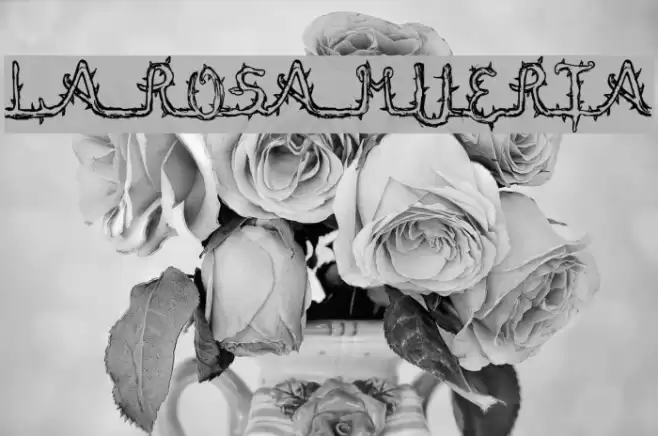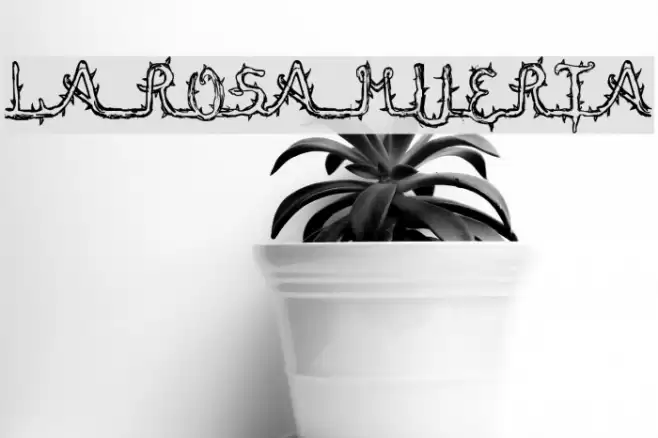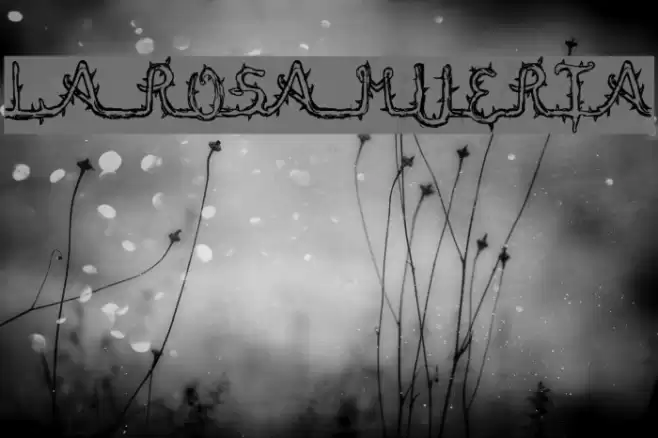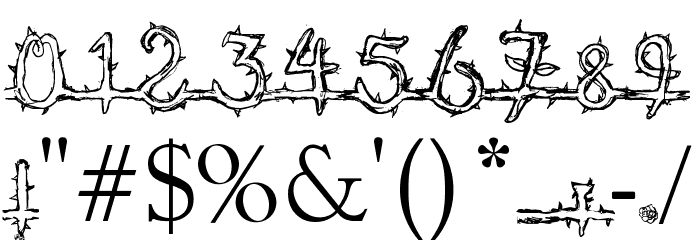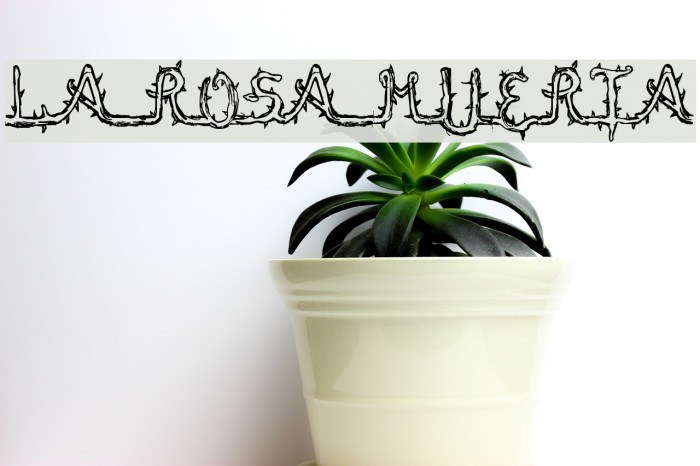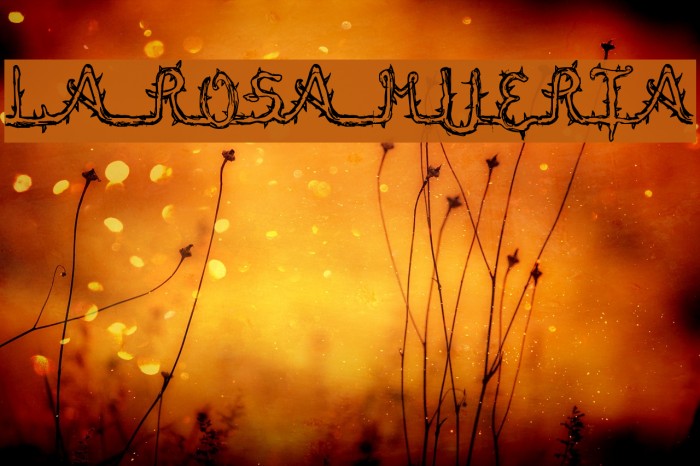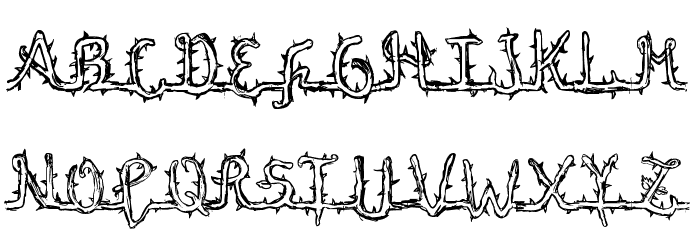
La Rosa Muerta Font
La Rosa Muerta Description
This font is a striking and edgy design that incorporates elements of barbed wire and thorns into each character. The letters are intricately detailed, with sharp, jagged edges that give a sense of danger and rebellion. The uppercase and lowercase letters maintain a consistent style, with the thorny embellishments creating a cohesive look. Numbers and special characters are also designed with the same attention to detail, making the font versatile for various uses. The overall appearance is bold and attention-grabbing, perfect for projects that require a dramatic and unconventional typeface.
An edgy, thorn-inspired font with intricate, jagged details from Uncategorized fonts.
- Font: La Rosa Muerta
by JuanCasco - Weight: Regular
- Proposed Projects: Ideal for album covers, horror-themed posters, edgy branding, or any project requiring a dramatic and unconventional typeface.
- Use Case: Logos, Posters, Album Covers